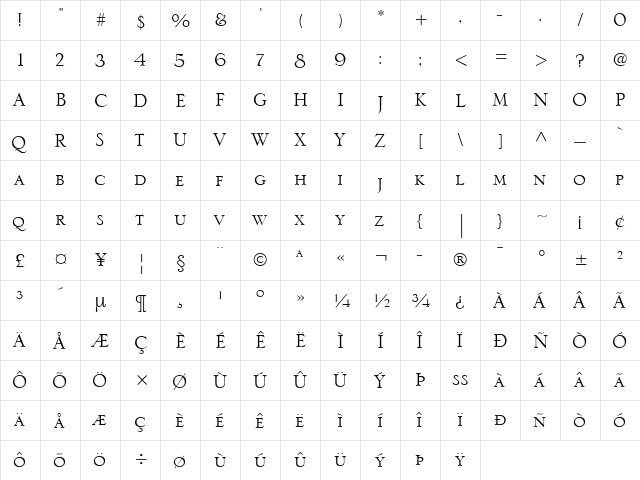
Serlio LH Regular
Design Context for Serlio LH Typeface
Serlio LH takes a measured approach to typography — its balanced proportions and neutral character make it a reliable workhorse for both digital and print work.
Pro Tip: Pair Serlio LH with a font of contrasting weight or personality to build a more expressive typographic hierarchy.